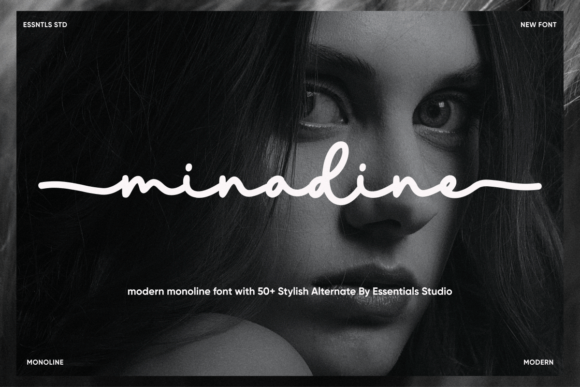
Introducing Minadine Font - The Epitome of Minimalist Elegance for Your Design Endeavors
Step into the world of refined typography with Minadine Font, the modern monoline creation of Essentials Studio, designed to elevate your creative projects to new heights of sophistication. This script font family embodies the essence of minimalism, offering a clean, crisp, and timeless aesthetic that resonates with contemporary design sensibilities.
With its delicate hairlines and subtle curves, Minadine Font exudes an air of grace and simplicity that captivates the eye. Experience the joy of crafting minimalist logos that radiate elegance, evoke memories, and forge connections with your audience. Whether you're designing product packaging, branding materials, social media graphics, or wedding invitations, Minadine Font becomes your trusted companion, transforming ordinary words into captivating expressions.
Immerse yourself in the boundless possibilities of Minadine Font. Its versatility extends beyond logos, seamlessly blending into magazine layouts, social media posts, and any project that demands a touch of understated refinement. Its clean lines and harmonious proportions lend themselves effortlessly to various design styles, making it a versatile choice for both traditional and modern aesthetics.
Minadine Font: A Symphony of Design Possibilities
- Ignite Your Creativity: Unleash your imagination and explore the vast design horizons that Minadine Font opens up. From minimalist logos to captivating social media posts, let your creativity soar.
- Timeless Elegance: Embrace the enduring beauty of Minadine Font, a timeless creation that transcends fleeting trends and remains relevant in the ever-changing world of design.
- Versatility Unbound: Experience the liberating versatility of Minadine Font, effortlessly adapting to a myriad of design projects, from product packaging to wedding invitations.
- Make a Statement: Elevate your designs with the distinctive charm of Minadine Font, leaving a lasting impression on your audience.
- The Perfect Canvas: Discover the joy of working with Minadine Font, a font that serves as the perfect canvas for expressing your unique brand identity and design vision.
Indulge in the creative freedom that Minadine Font offers and watch your designs flourish with sophistication and elegance. Embrace the power of simplicity and let your creations speak volumes, captivating your audience with the timeless beauty of Minadine Font.